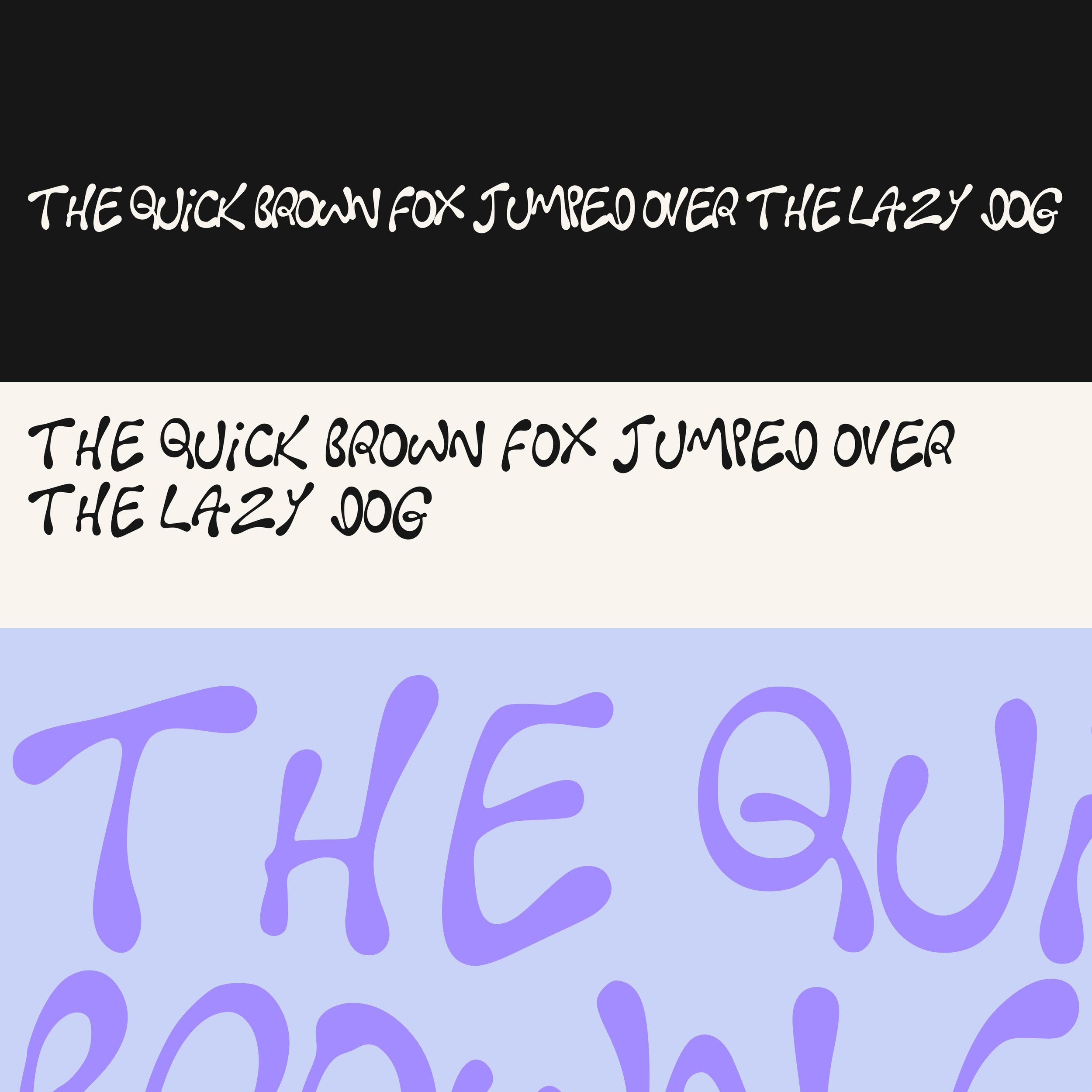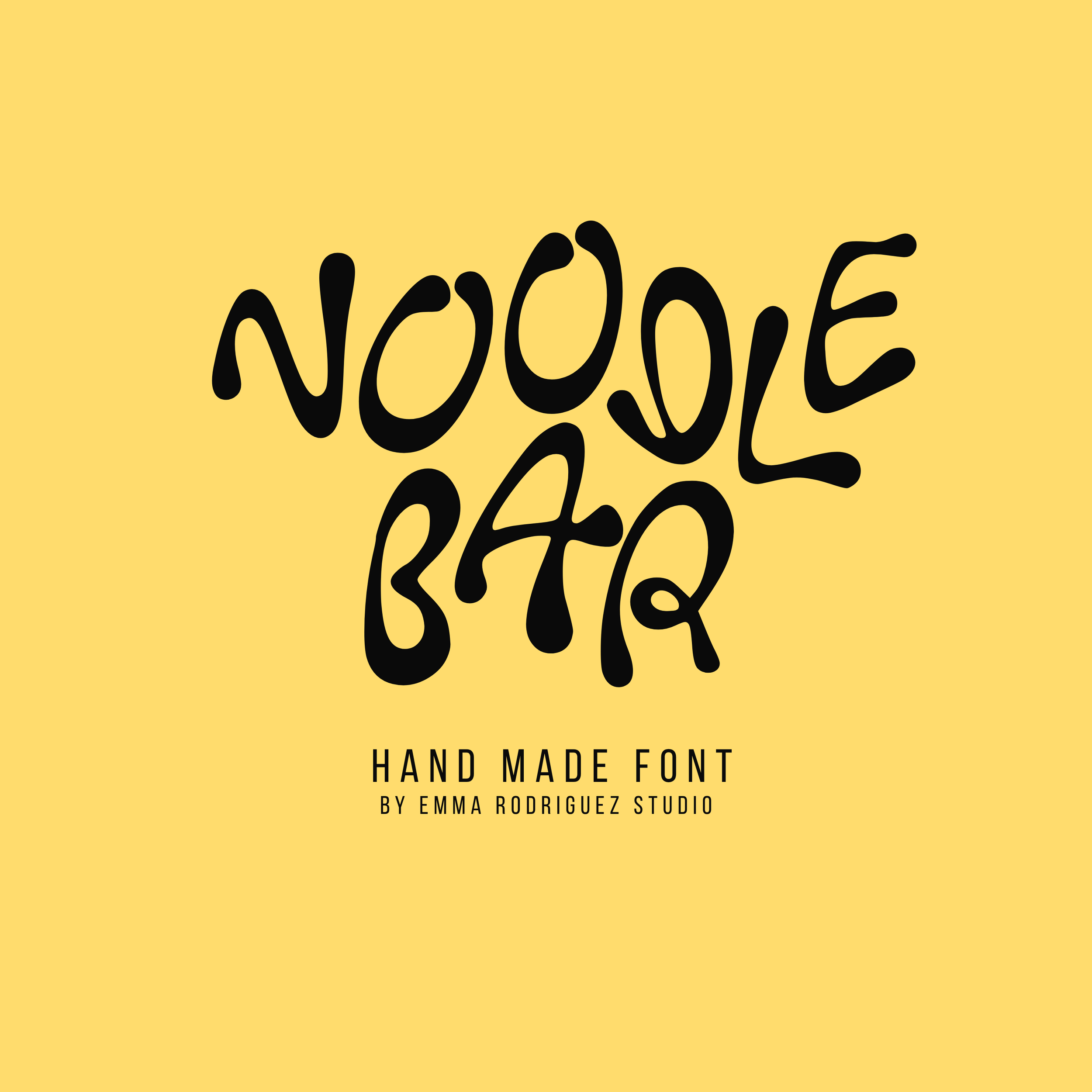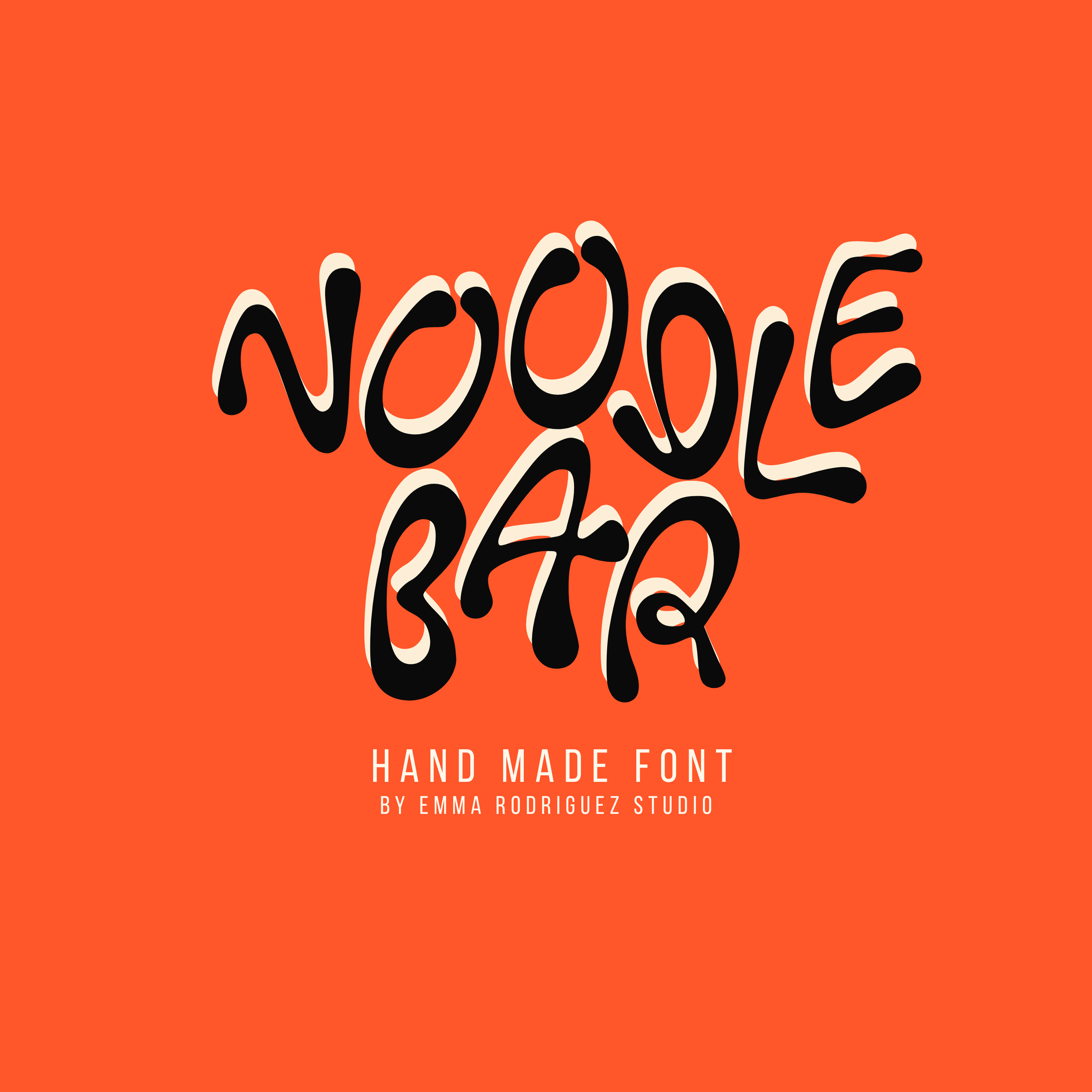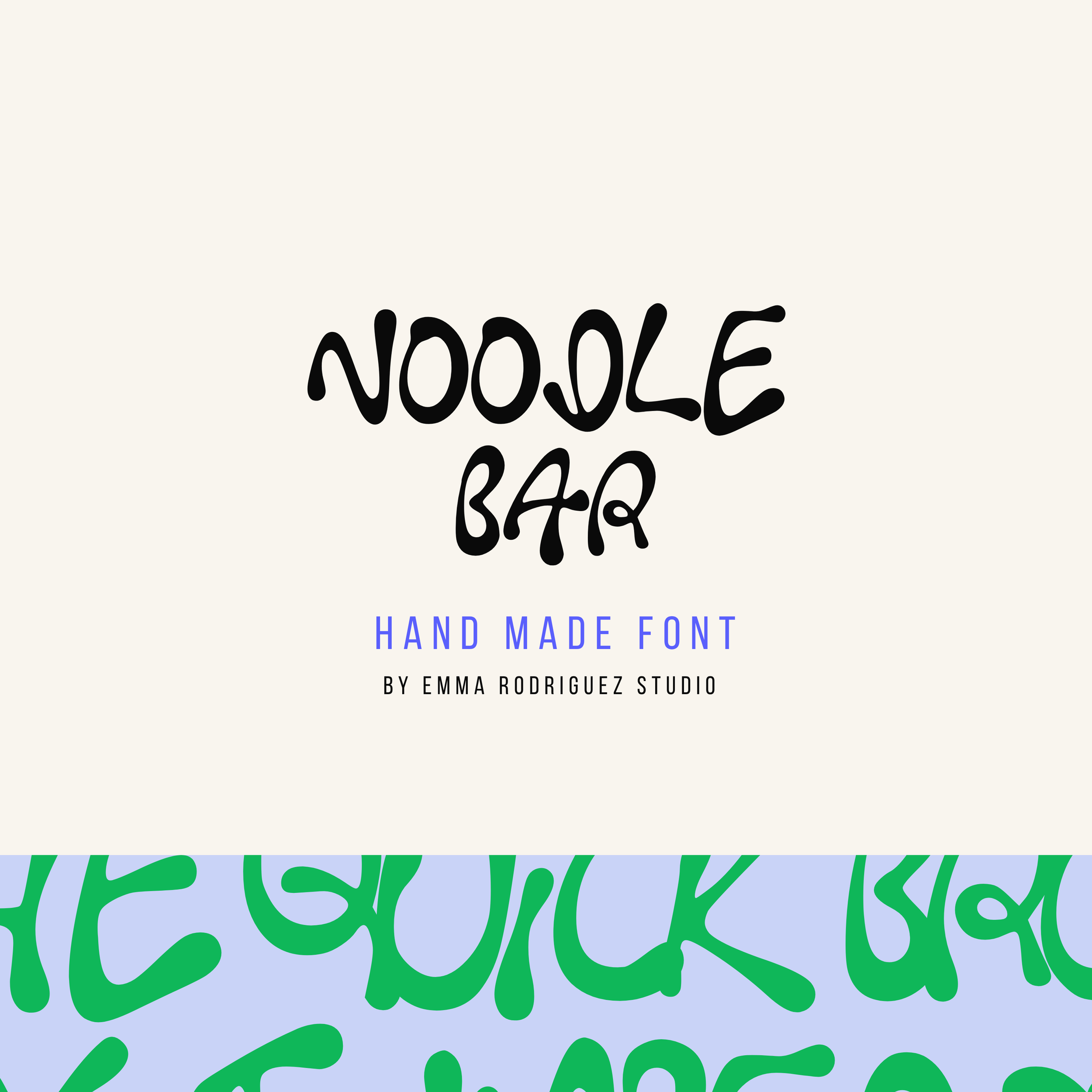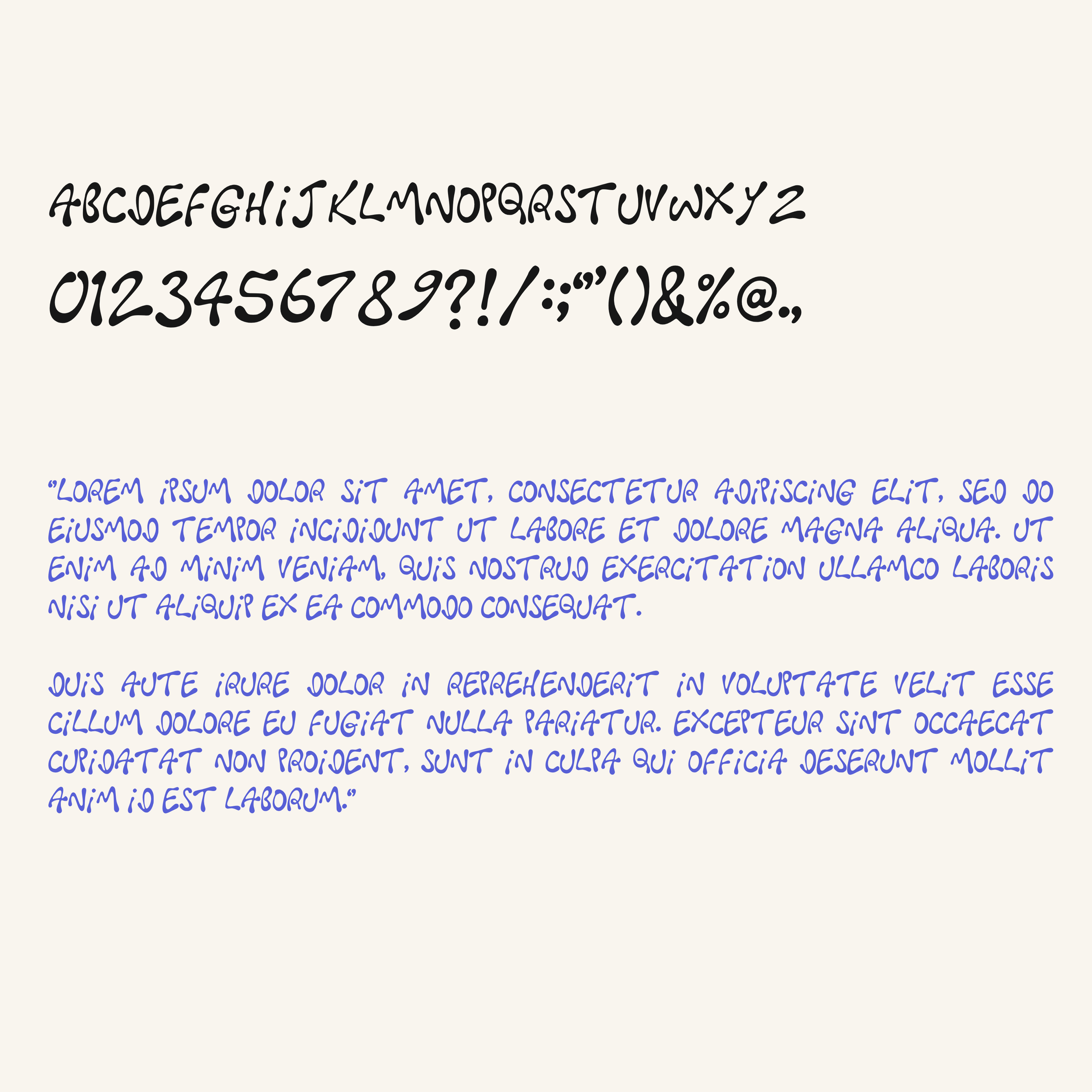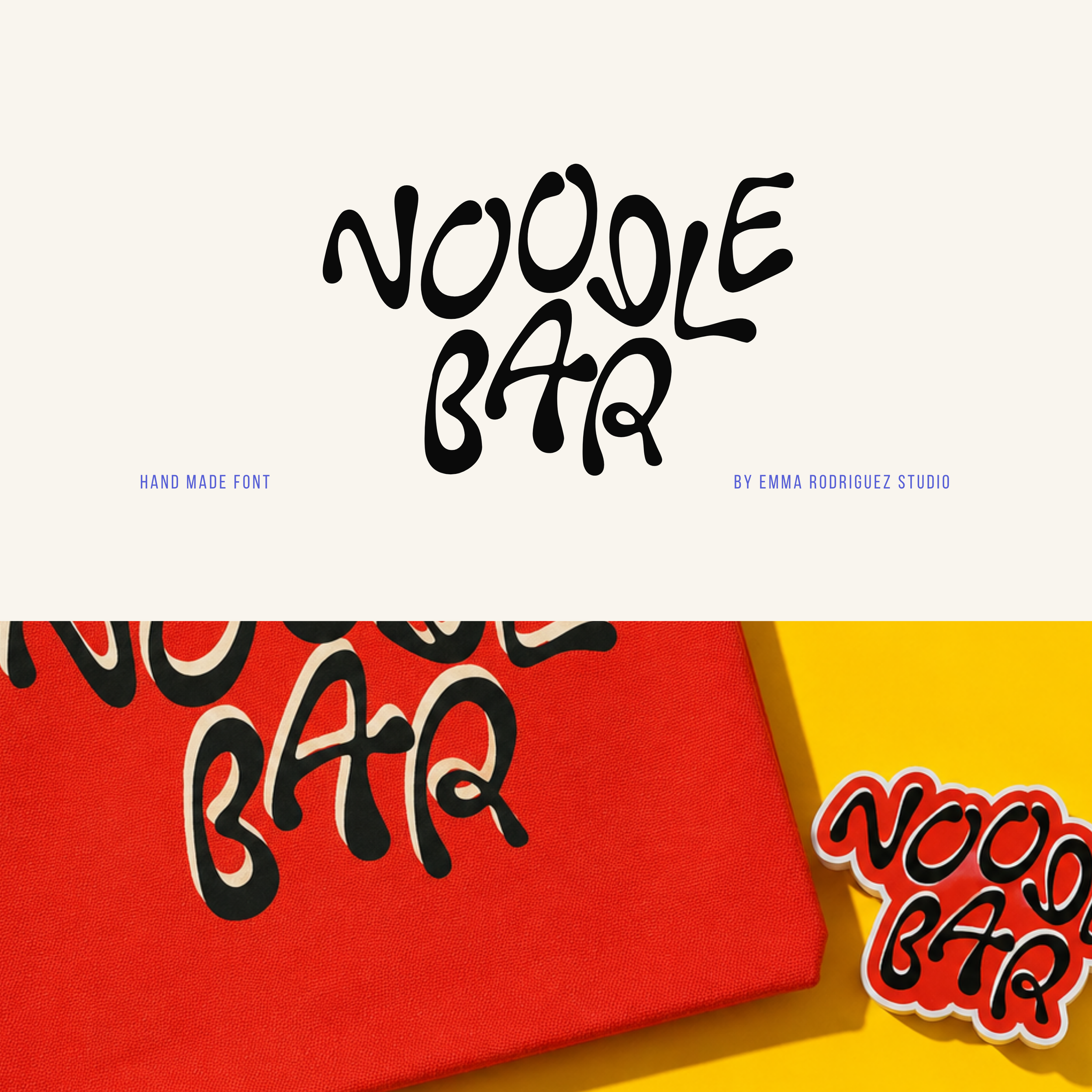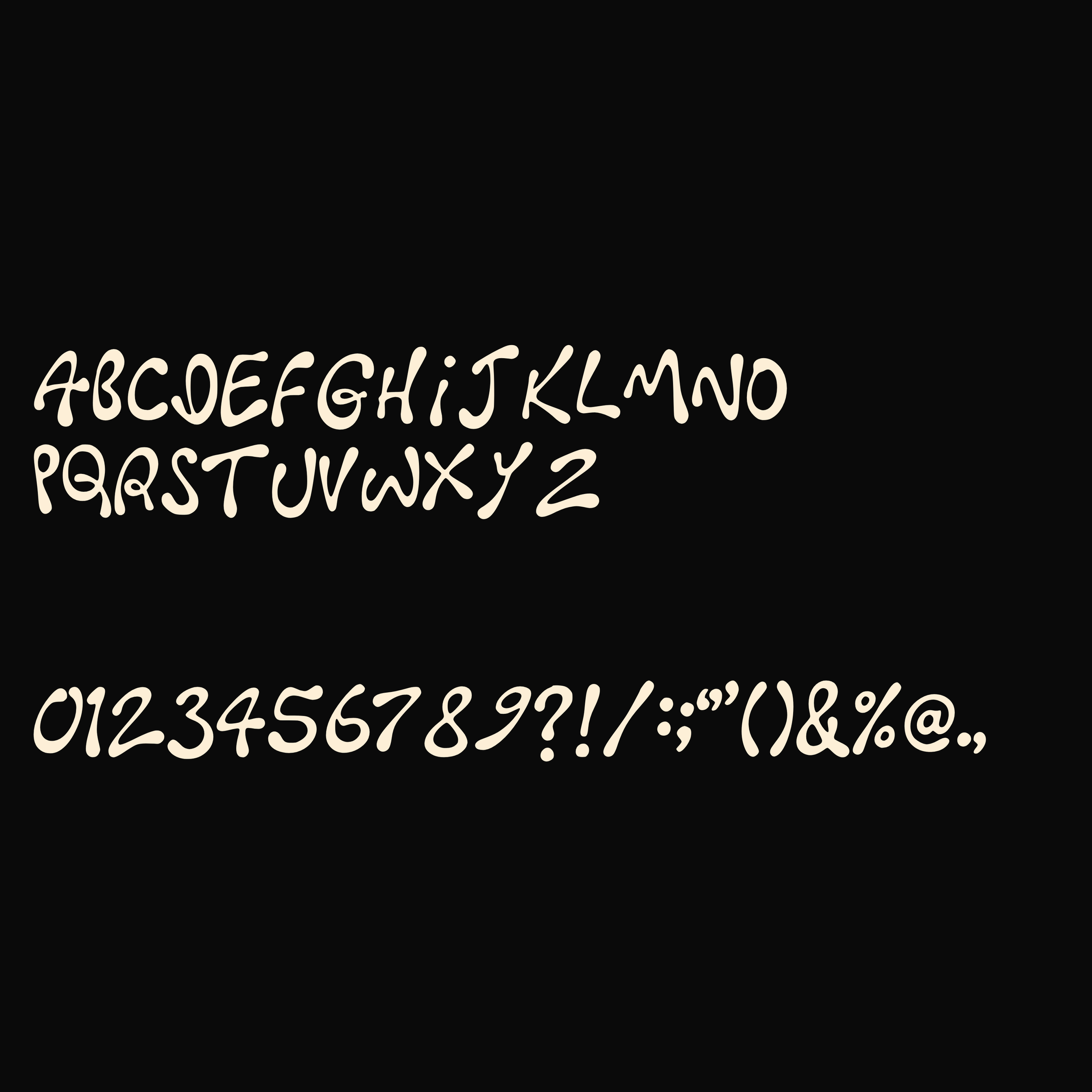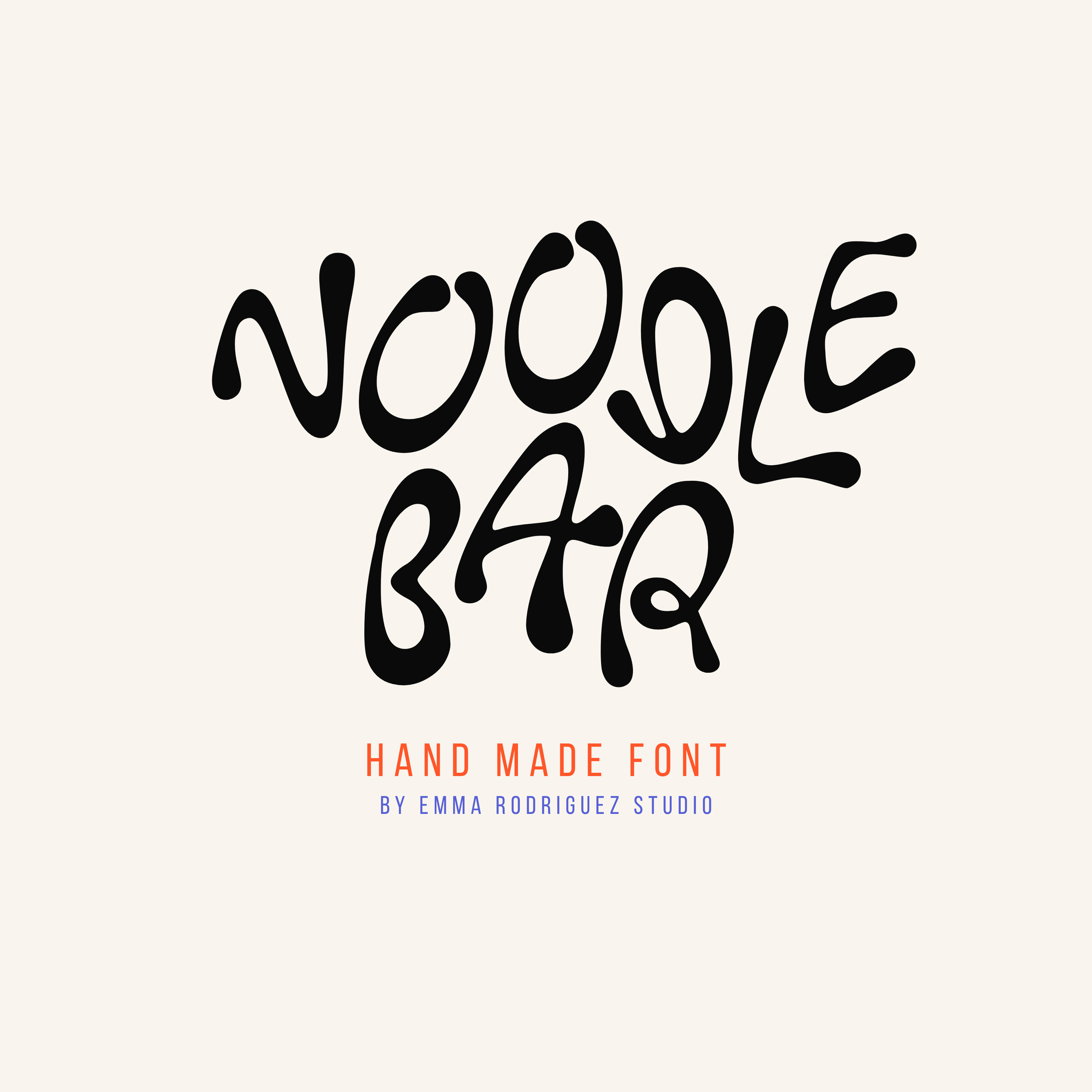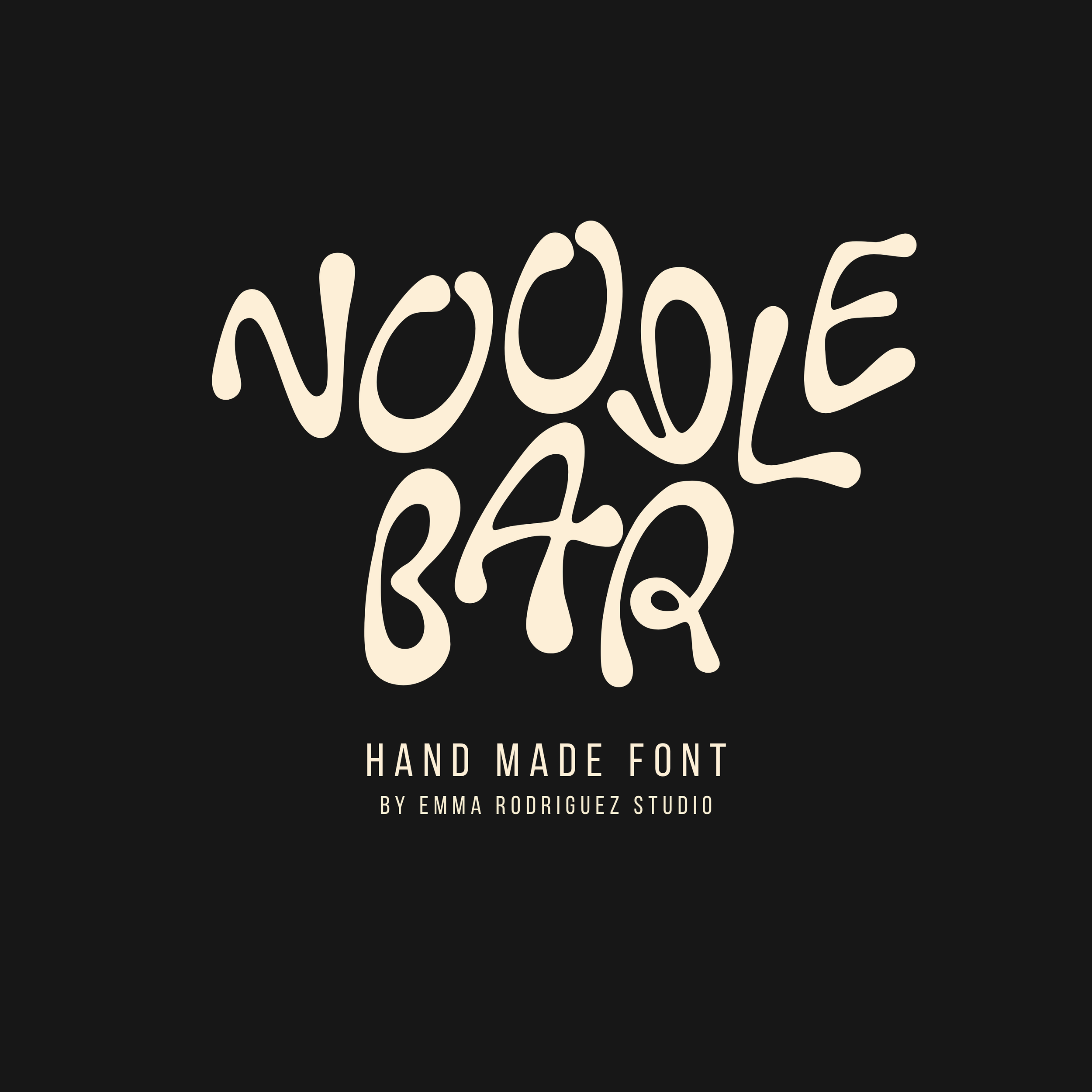
Noodle Bar Font - Wavy, Comic Type
Noodle Bar is a playful handwritten display font full of movement, personality, and charm. Built from flowing organic strokes and expressive letterforms, this typeface captures the energy of quick hand drawn lettering while remaining bold, highly readable, and visually distinctive.
Inspired by current trends in handmade typography, playful branding, quirky lettering, and personality driven design, Noodle Bar brings a relaxed and creative feel to any project. The soft curves, irregular shapes, and fluid construction create typography that feels human, approachable, and full of character.
Perfect for creatives looking to move away from overly polished digital fonts, Noodle Bar adds warmth and individuality to branding, packaging, posters, merchandise, social media graphics, and creative marketing materials.
• Uppercase letters
• Numbers 0 to 9
• Basic punctuation
With intentional differences in baselines and kerning, this font is by no means designed to be perfect, but instead created to bring fun character and a genuine handmade feel throughout. If you are looking for perfectly aligned digital typography, this may not be the font for you. The handmade imperfections and uneven structure are intentional parts of the font design and help give the typeface its bold playful character.
Designed by Emma Rodriguez Studio.